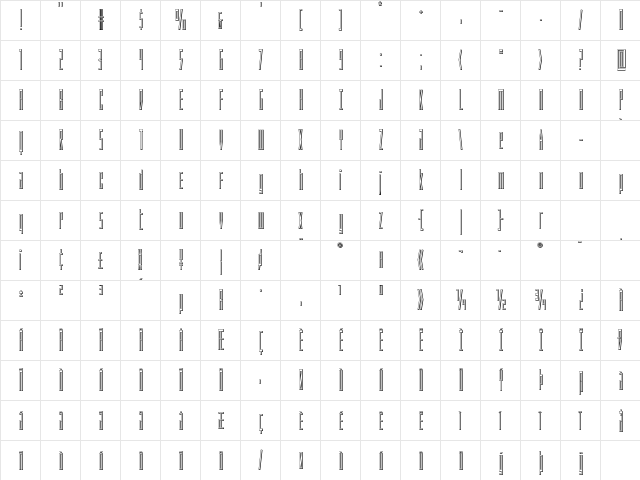
Phantacon Outline is built around its visual character rather than neutral utility - its distinctive forms are designed to make an impression at display sizes.
Font Pairing: Pair with a clean neutral sans-serif for body copy to let Phantacon Outline's character lead without overwhelming the composition.
Pro Tip: Use Phantacon Outline exclusively at display sizes - it was designed to be seen, not read at length. Let a neutral companion handle body copy.